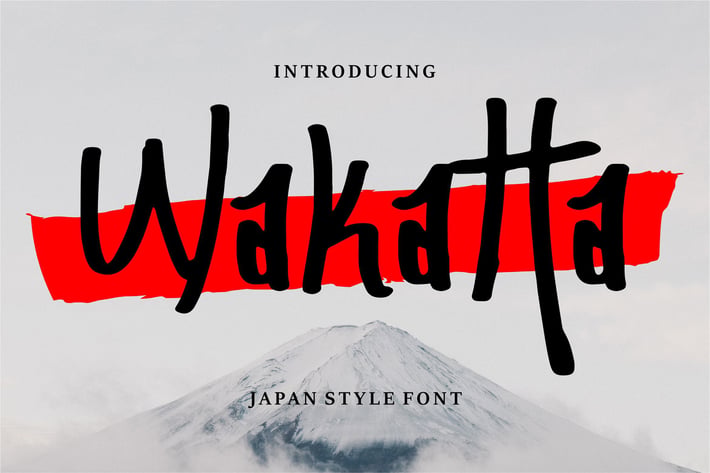
Wakatta | Japan Style Font
Wakatta | Japan Style Font with a calligraphy style, So beautiful on invitation like greeting cards, branding materials, business cards, quotes, posters, and more!